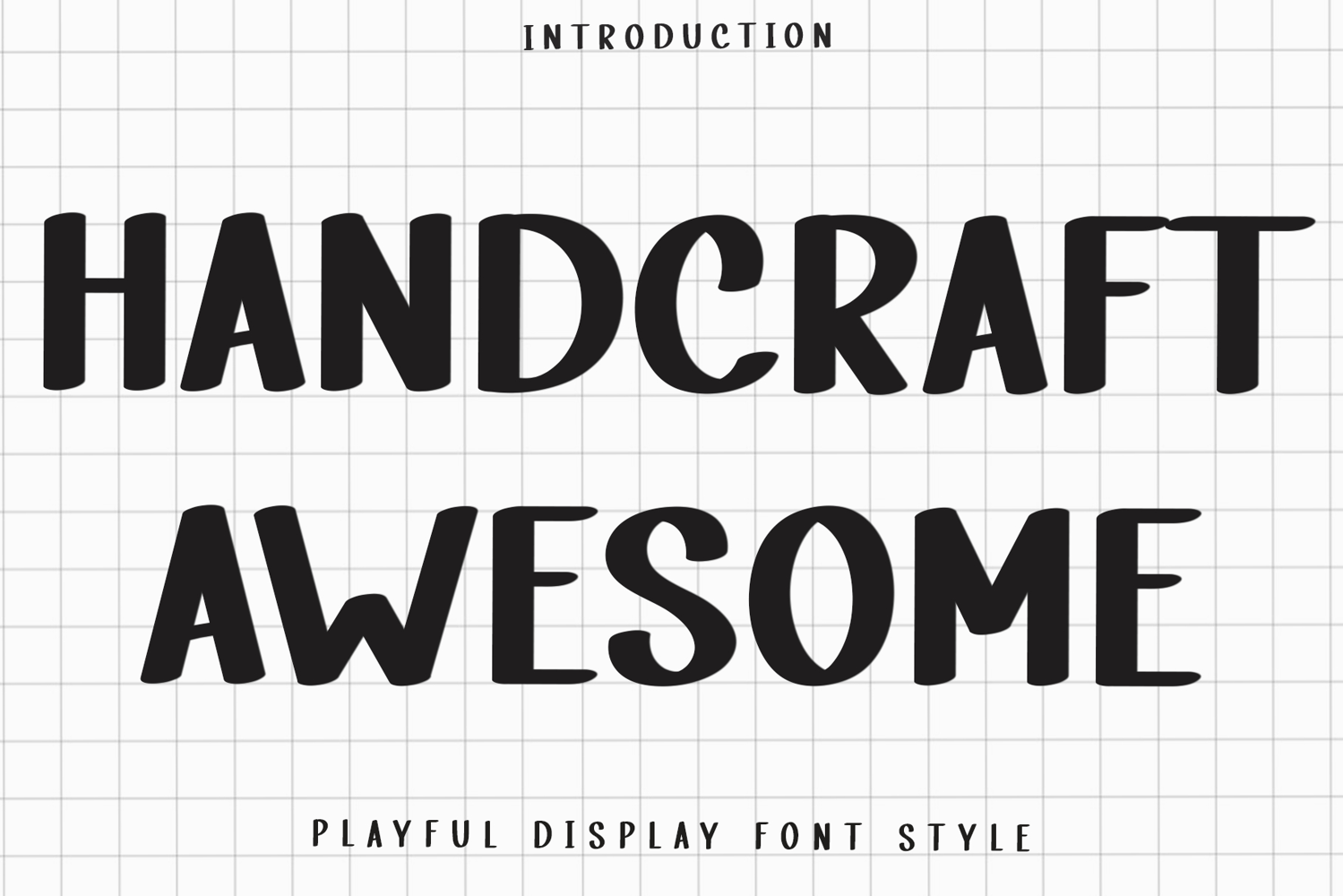
Handcraft Awesome
Handcraft Awesome is a beautiful and eye-catching font designed with a soft, unique touch. Its distinctive strokes give it a special character, making it meaningful and versatile for future use. With various characters, it’s perfect for design projects, crafts, and other creative works.